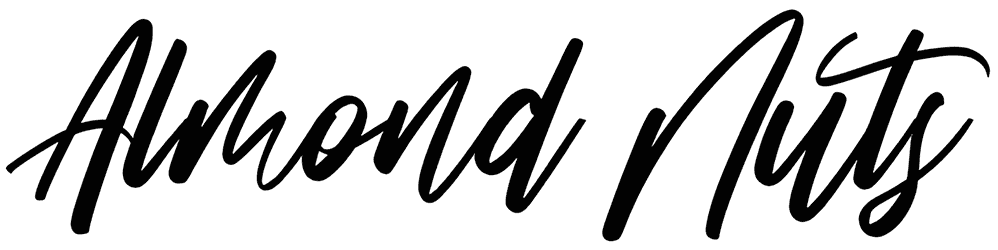
Almond Nuts Font
Almond Nuts is like a window into the author’s soul, whose charm and unique personality cannot be duplicated by any other font type. With its irregular lines and challenging legibility, this handwritten font depicts the essence of human expression and individuality. Whether creating a logo, designing a greeting card, or writing a journal entry, this script font can provide a personal touch without relying on numbers that will elevate your work to new heights.